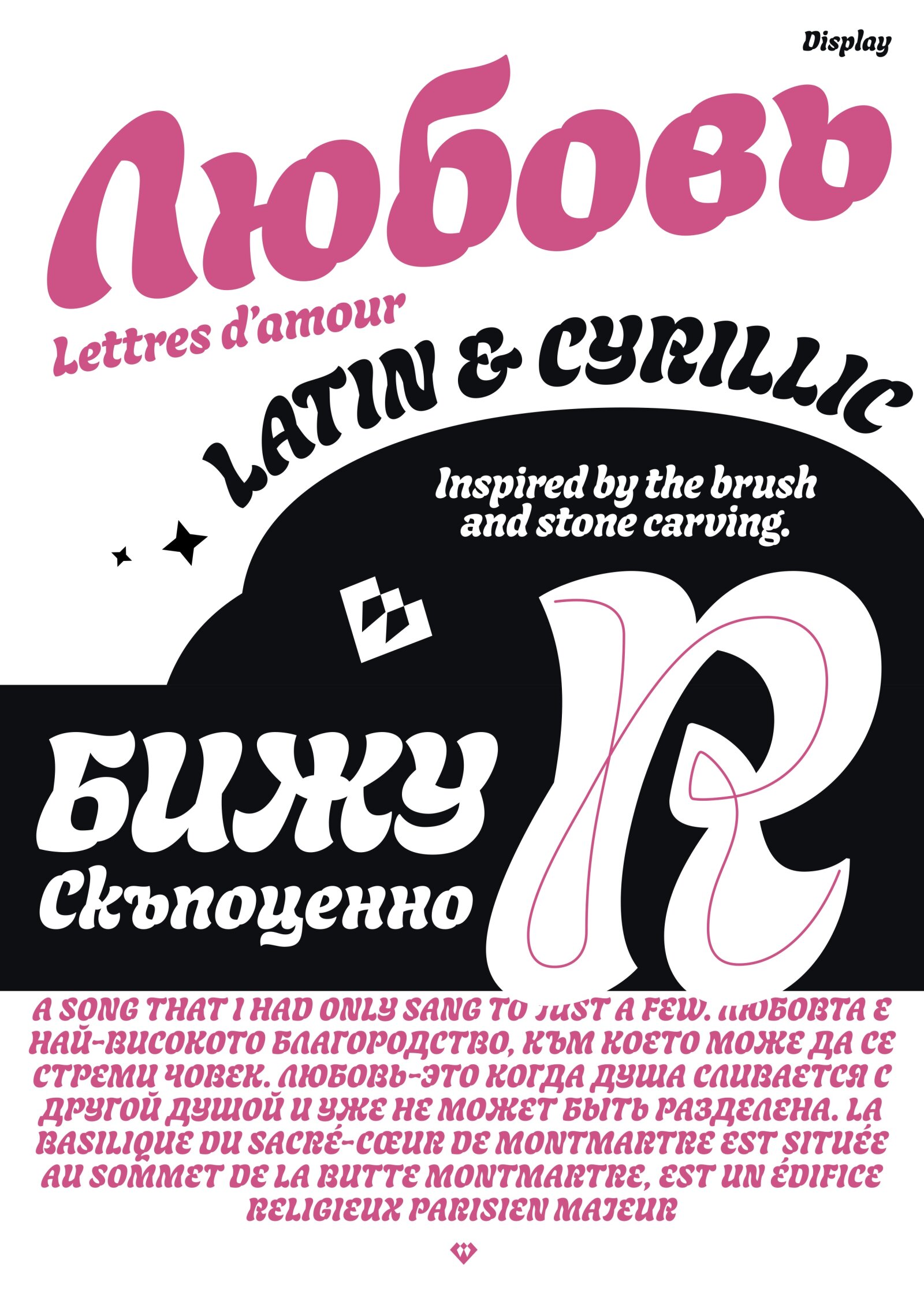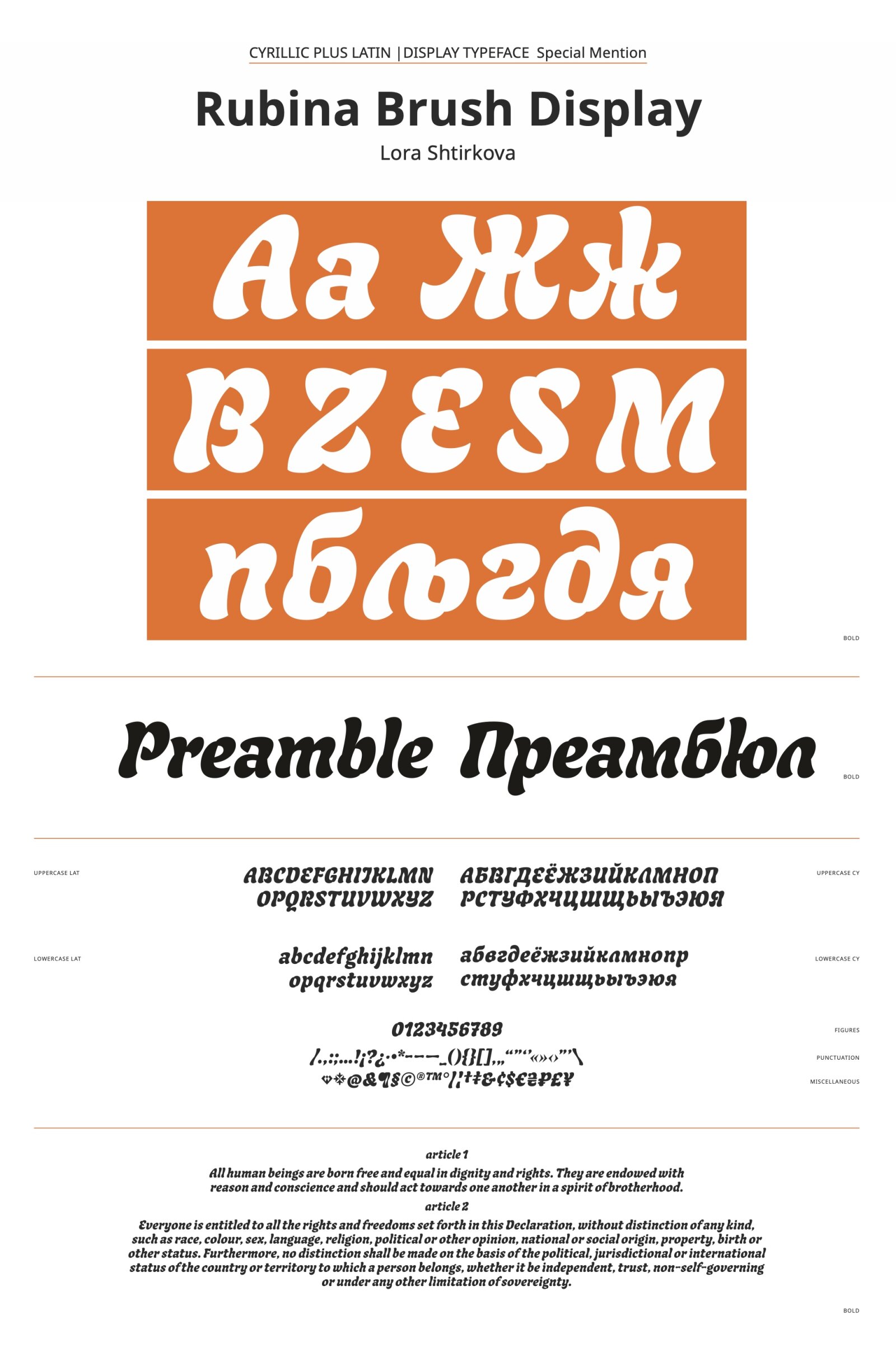
Rubina Brush Display
by Lora Shtirkova
Cyrillic
The pleasant dance of letter and counter shapes are well preserved in Cyrillic. The Bulgarian variants look unsurprisingly natural.
The typeface draws inspiration from the flat brush, highlighting its flexibility and the range of manipulations and rotations it enables. While calligraphy serves as the foundation, some referred to it as an ‘artificial brush,’ not because it truly is one, but due to its construction involving more pen lifts. Building upon this base, the design is further enhanced with hand-drawn elements. A distinctive characteristic is the ‘short overlap’ evident in the round letters, extending to the stems in a unique manner. During the process, the shapes in the Cyrillic enriched the Latin, and vice versa. The style is Bold, featuring a 10-degree slant that enhances its dynamic appearance, complementing the expressive shapes to achieve the desired outcome.